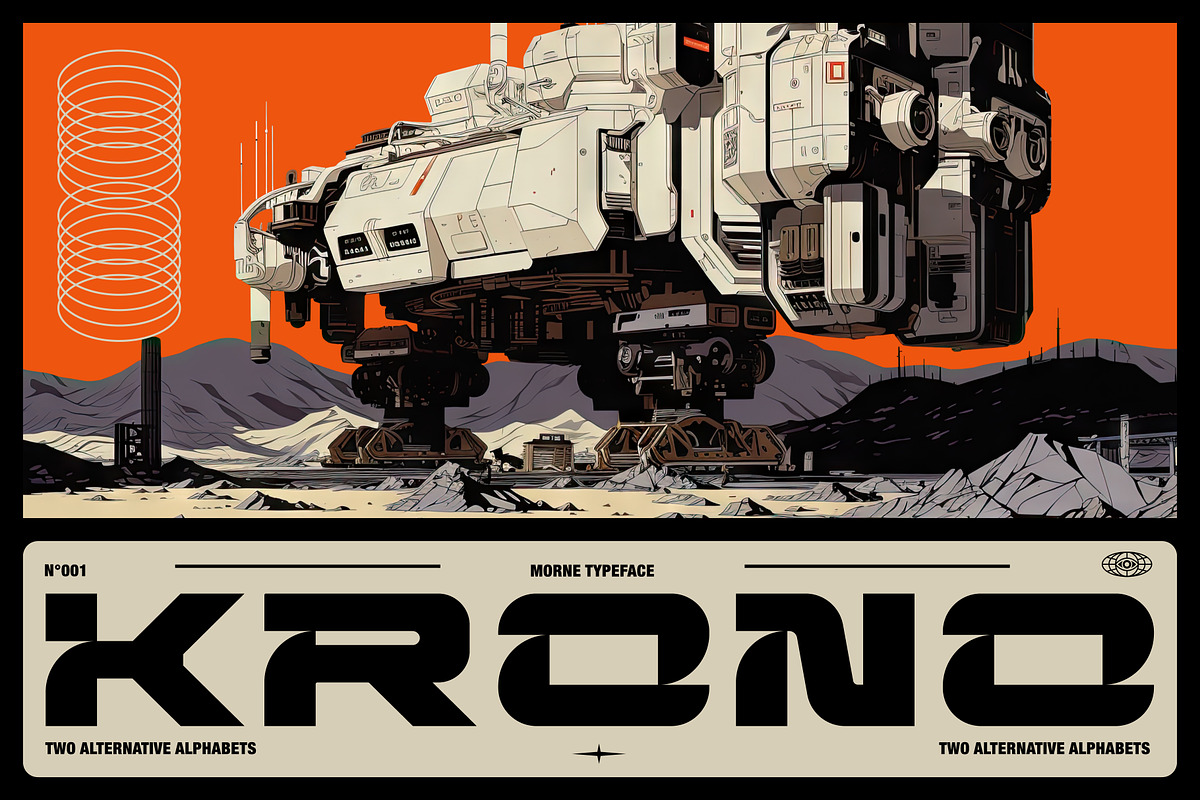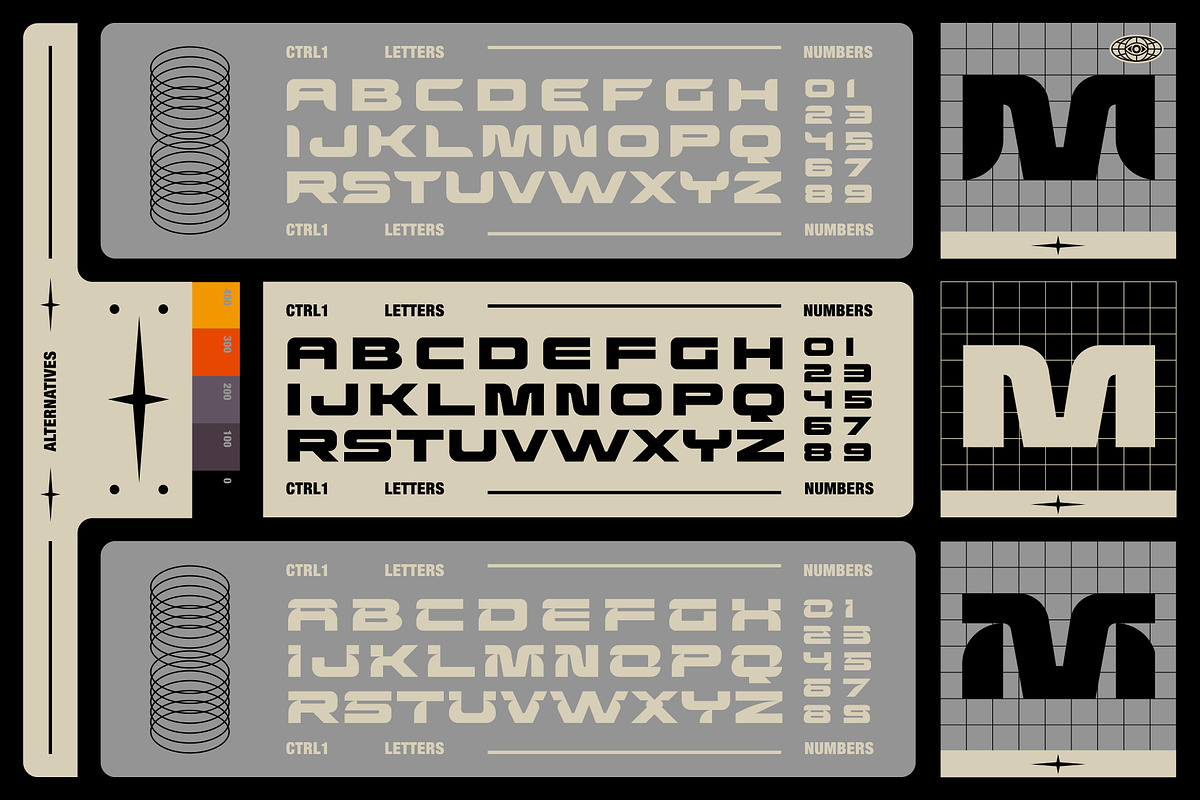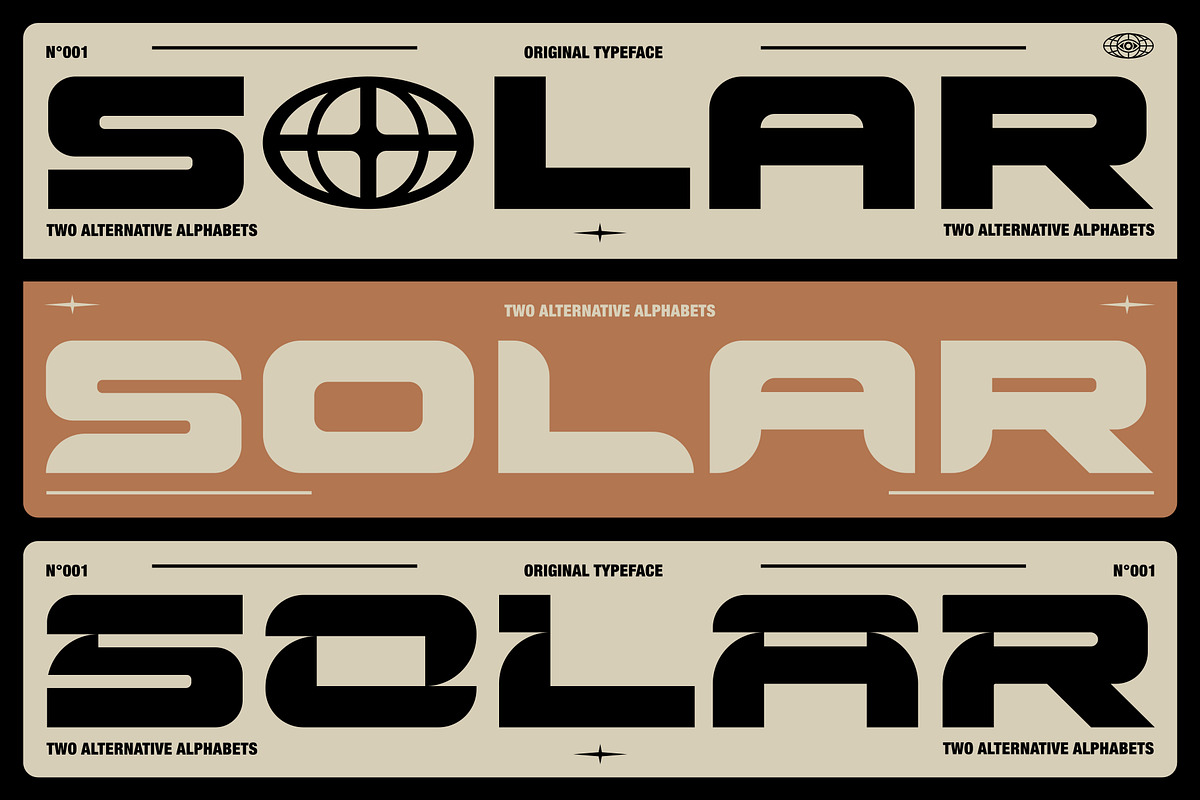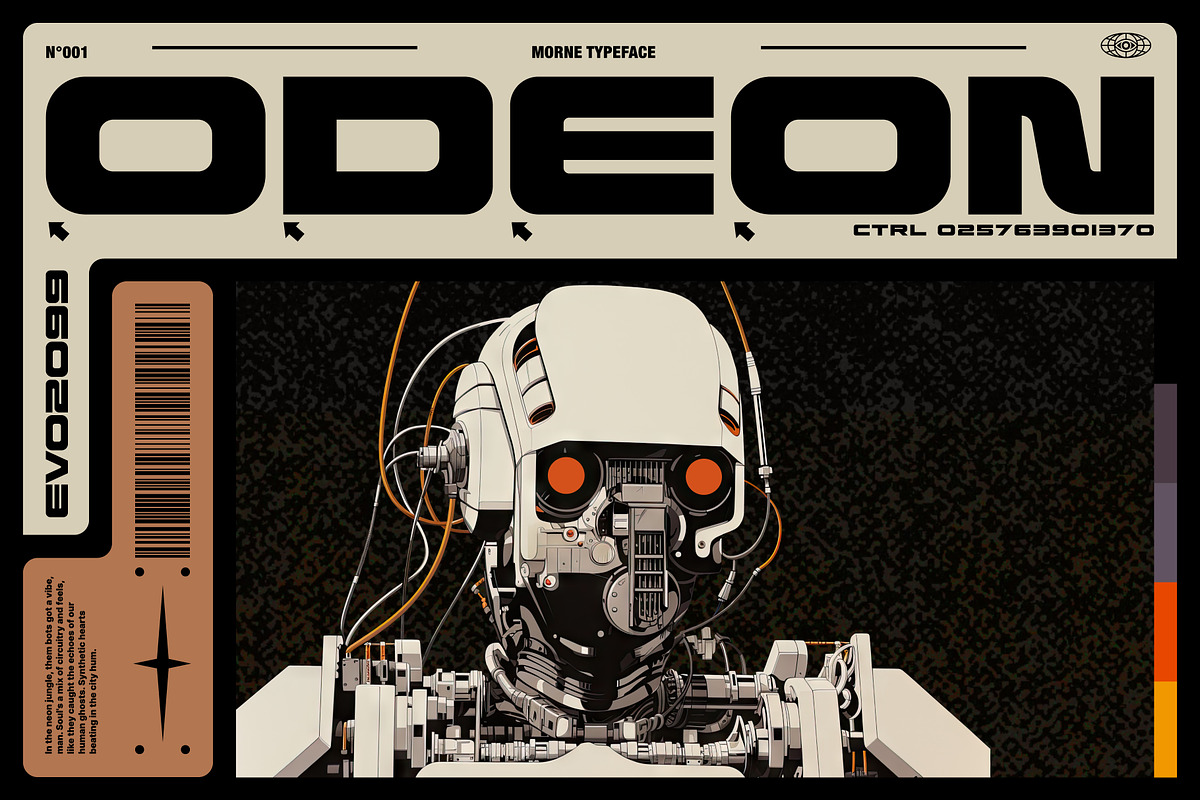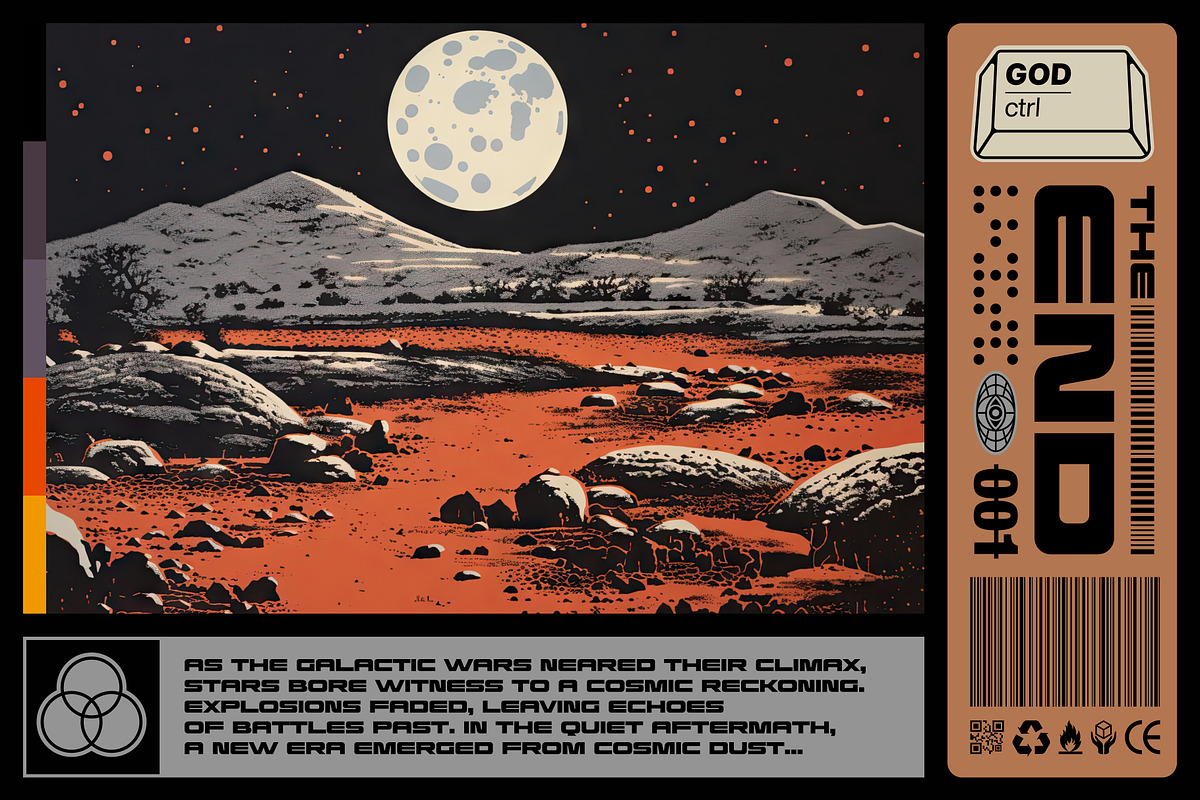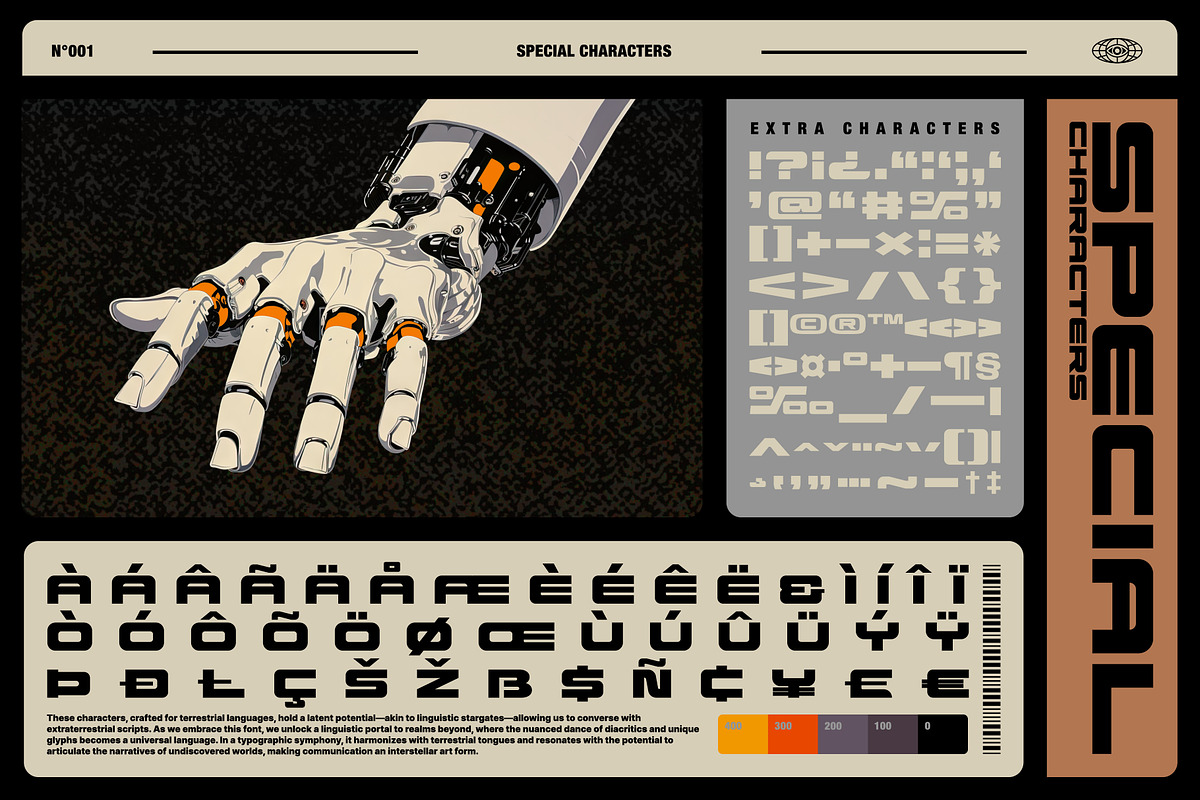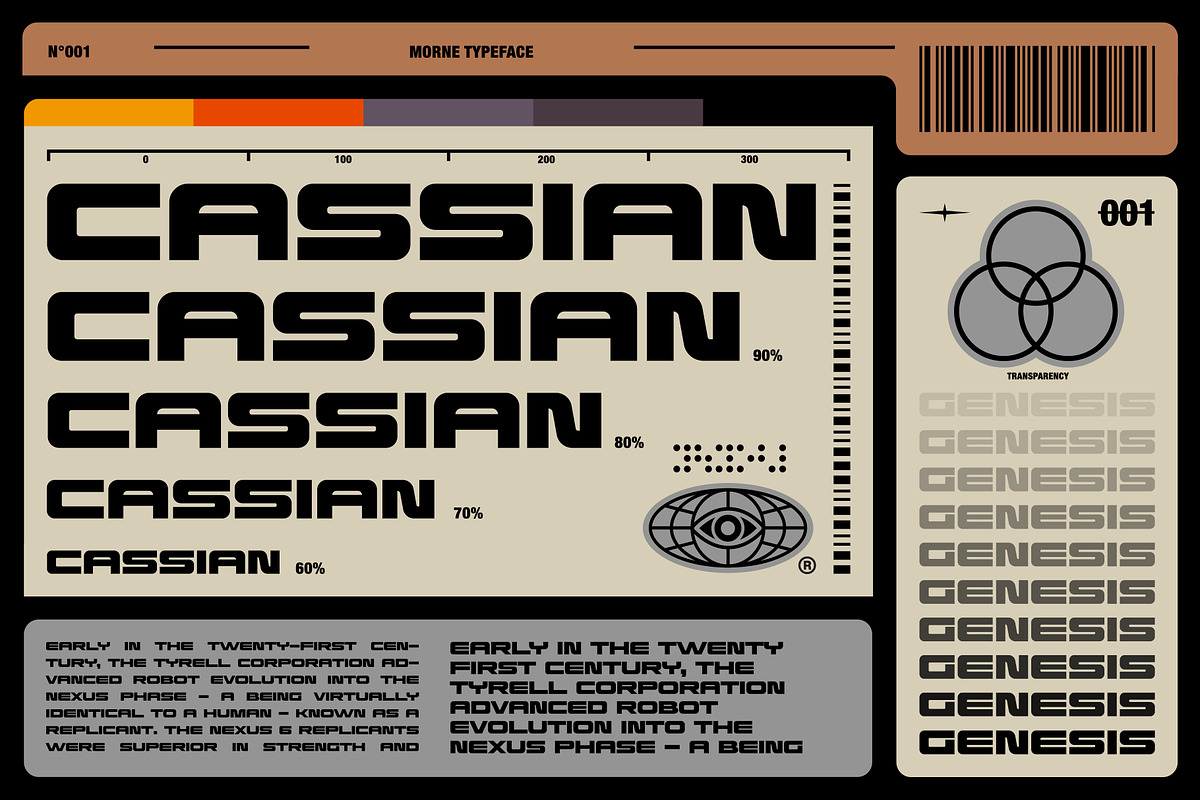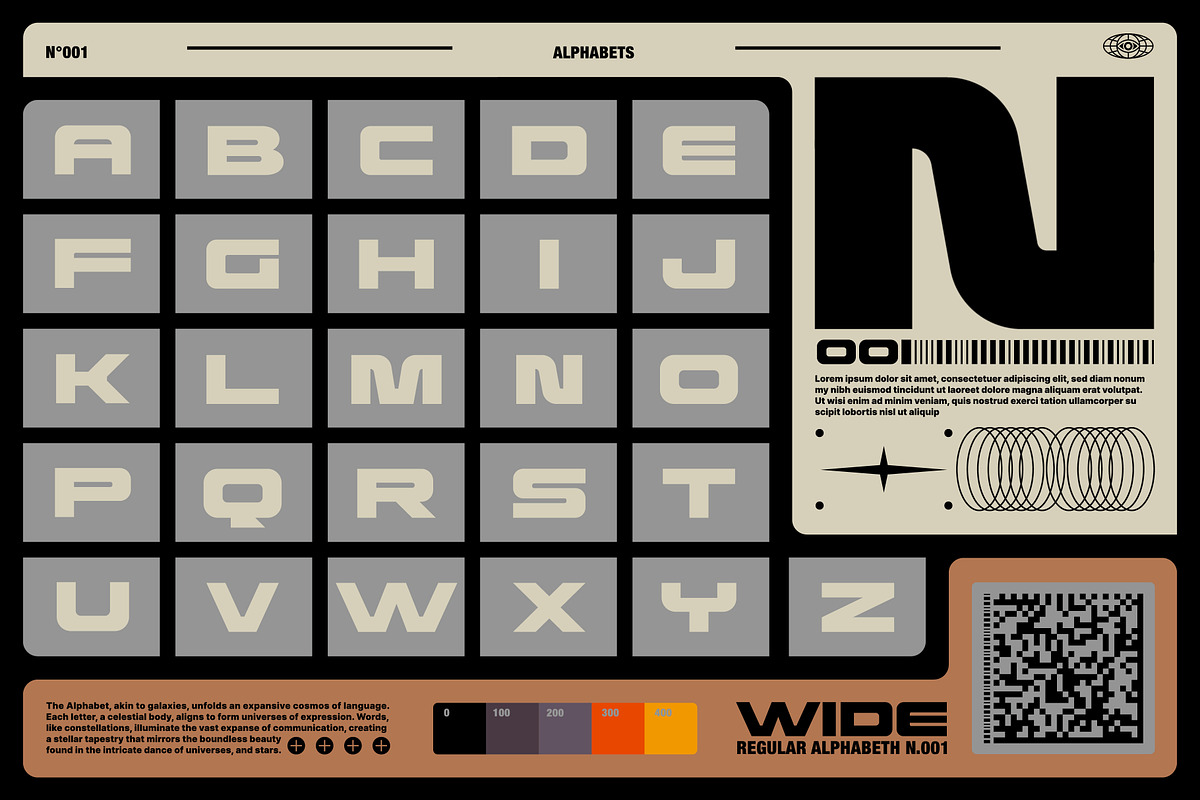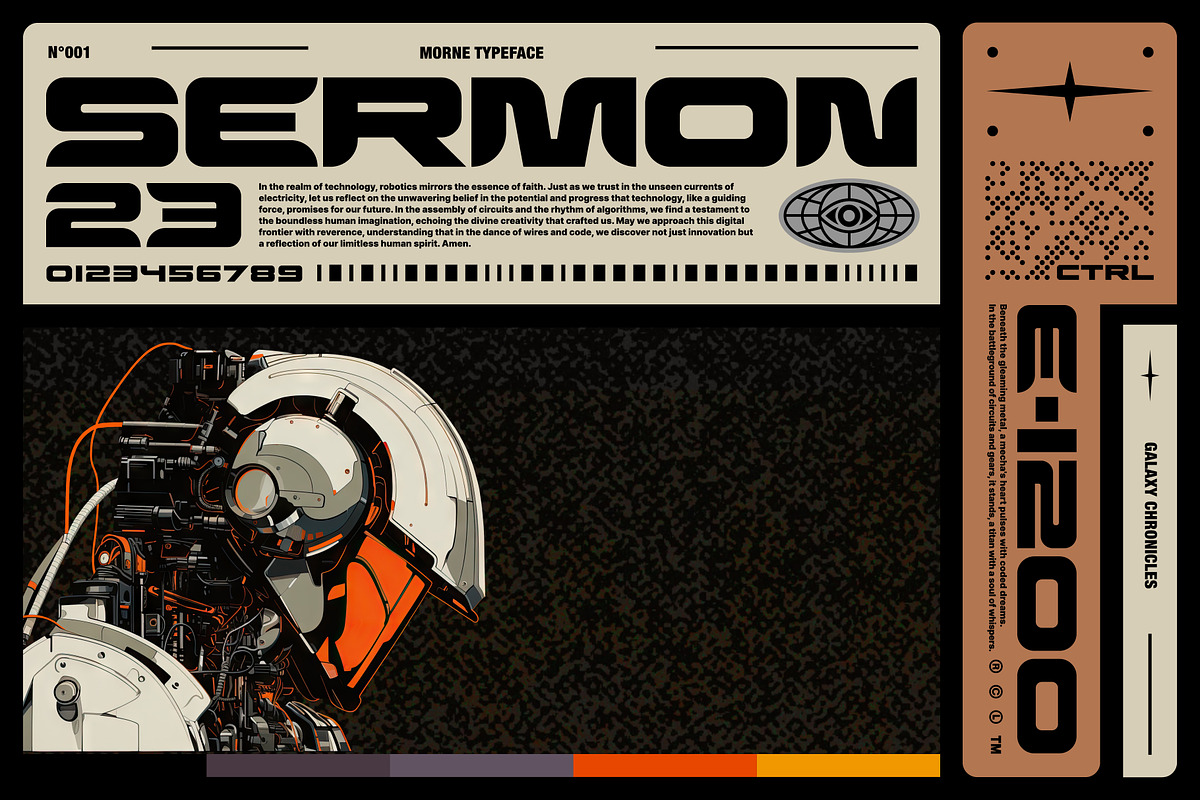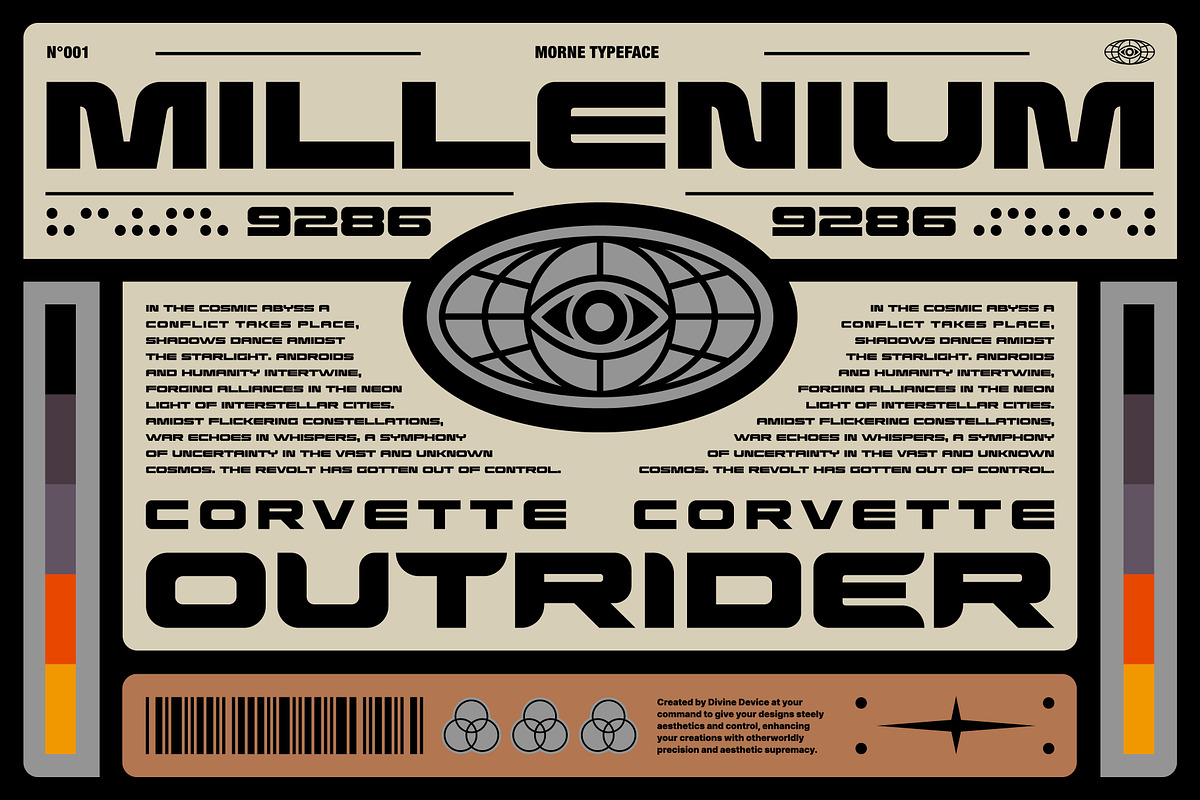
Morne Display Typeface
Behold, designers! Morne just dropped into the font game, and let us tell you, it’s not here to play — meet our typeface that’s as bold as your morning coffee.
Whether you're crafting a killer headline, a sneaky subheading or a bold poster, Morne’s got your back, front, and even your creative soul, bringing the perfect fusion of wide and heavy that slaps your audience awake.
It's a triple-threat wonder with three alternatives for every letter and number, including special, multilingual and punctuation characters. It’s here to stand out, shout out, and give your font library a sleek upgrade.
- One bold typeface
- Three alternatives for each letter and number
- Special characters and punctuation included
- 256 total characters